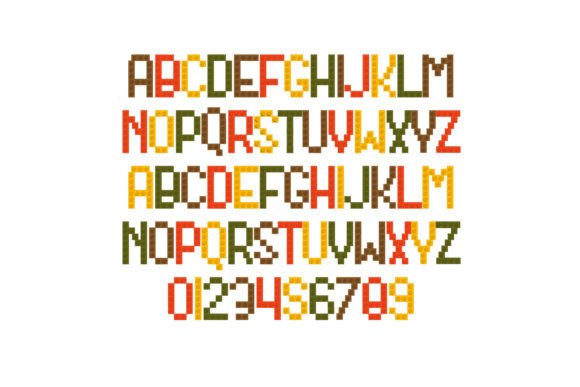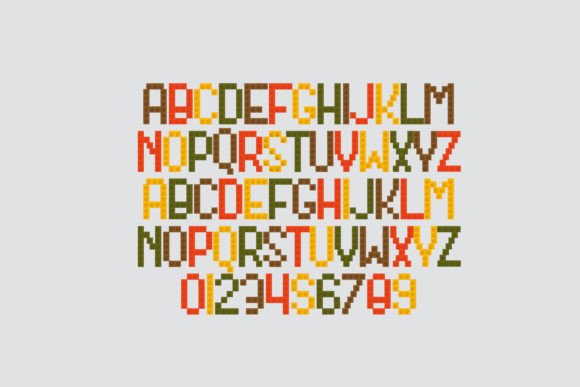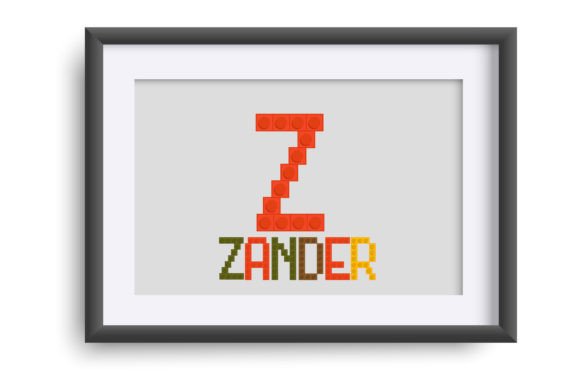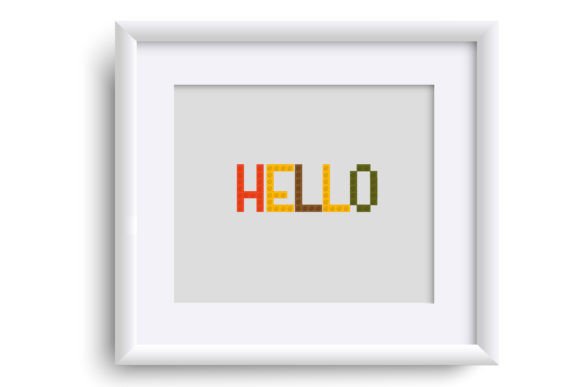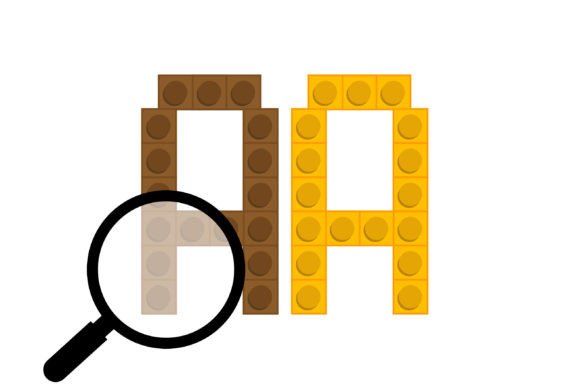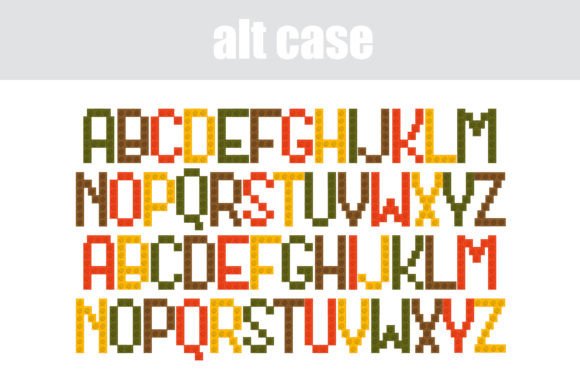
Introducing Builders Fall Font: A Vibrant Autumnal Typeface
Are you looking for a font that captures the warmth and coziness of autumn? Look no further than the Builders Fall Font, a stunning full-color typeface that features a building block style font in a beautiful autumn color palette. This font is perfect for designers and crafters who want to add a pop of color to their titles, displays, posters, and more.
What Makes Builders Fall Font Special?
The Builders Fall Font is a unique and versatile typeface that offers a range of creative possibilities. Here are some of its key features:
• Full-color font: This font features a range of autumnal colors, from warm oranges and yellows to rich browns and reds.
• Building block style: The font’s building block style gives it a fun and playful feel that’s perfect for titles, headings, and displays.
• Alt case with additional colors: The font includes an alternative case with additional colors that can be accessed through your system’s character map.
Why Choose Builders Fall Font?
So why choose the Builders Fall Font? Here are just a few reasons:
• Unique and eye-catching: This font is unlike any other, with its vibrant autumn colors and building block style.
• Versatile: The font can be used for a range of projects, from titles and displays to posters and more.
The Builders Fall Font is a stunning and versatile typeface that’s perfect for designers and crafters who want to add a pop of color to their projects. With its vibrant autumn colors and building block style, this font is sure to make your titles, displays, and posters stand out. Whether you’re a seasoned designer or just starting out, this font is a great addition to your font library.